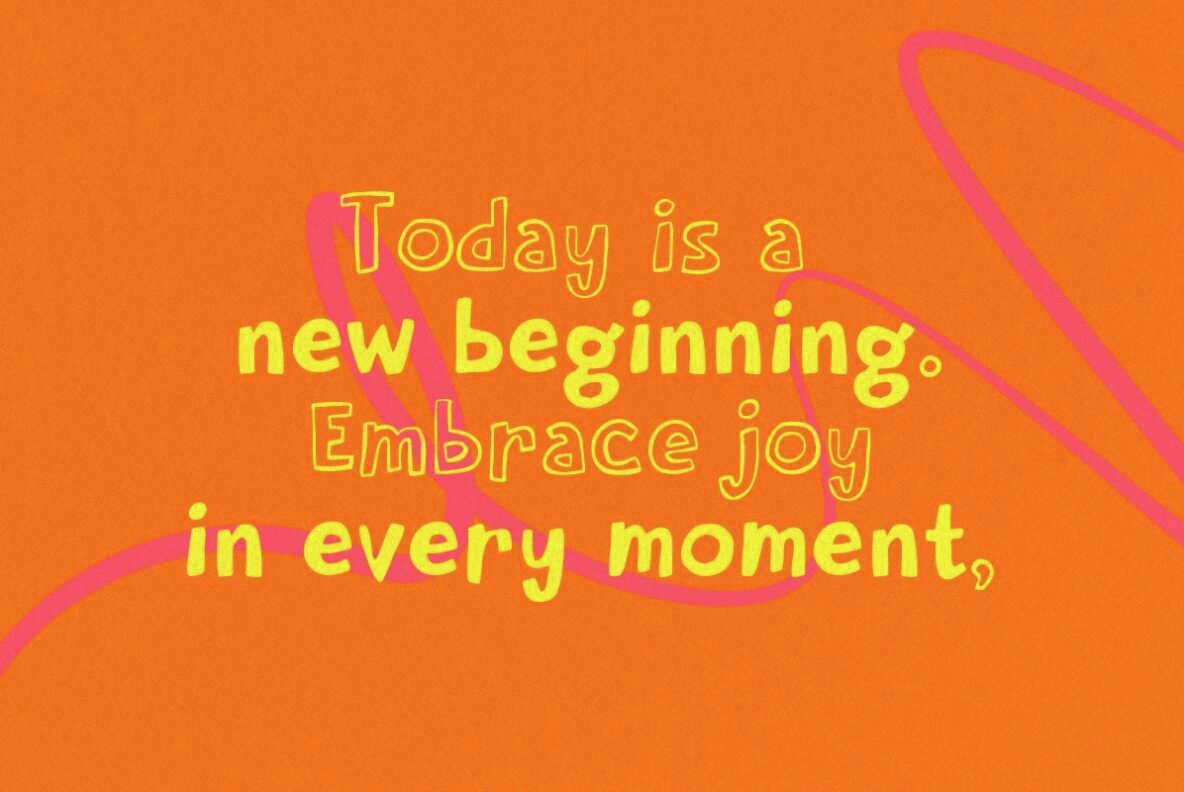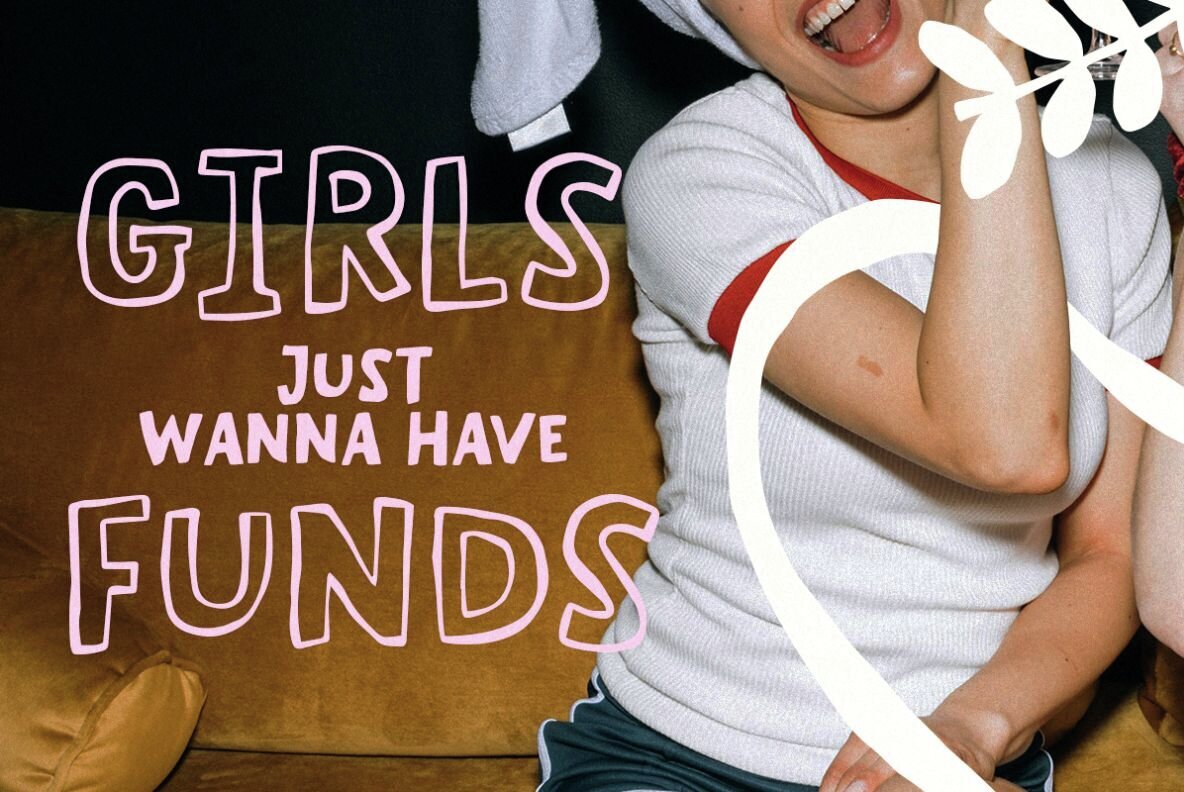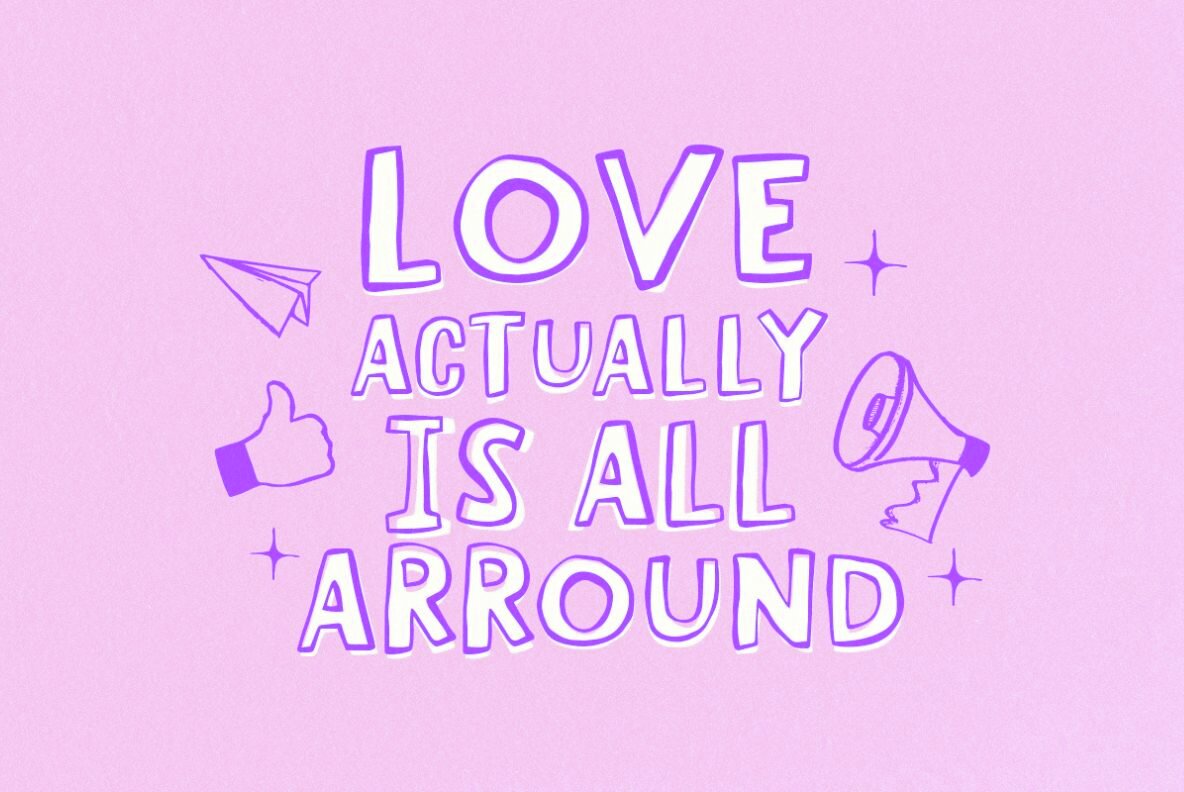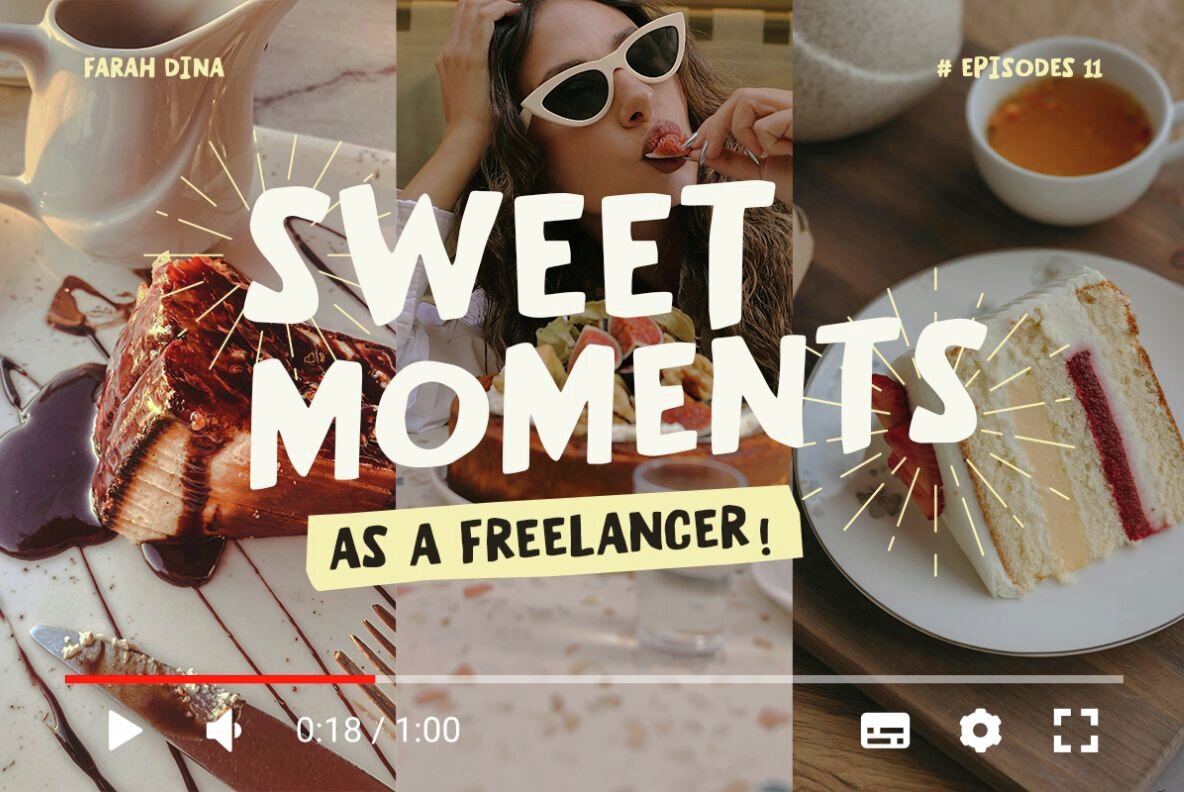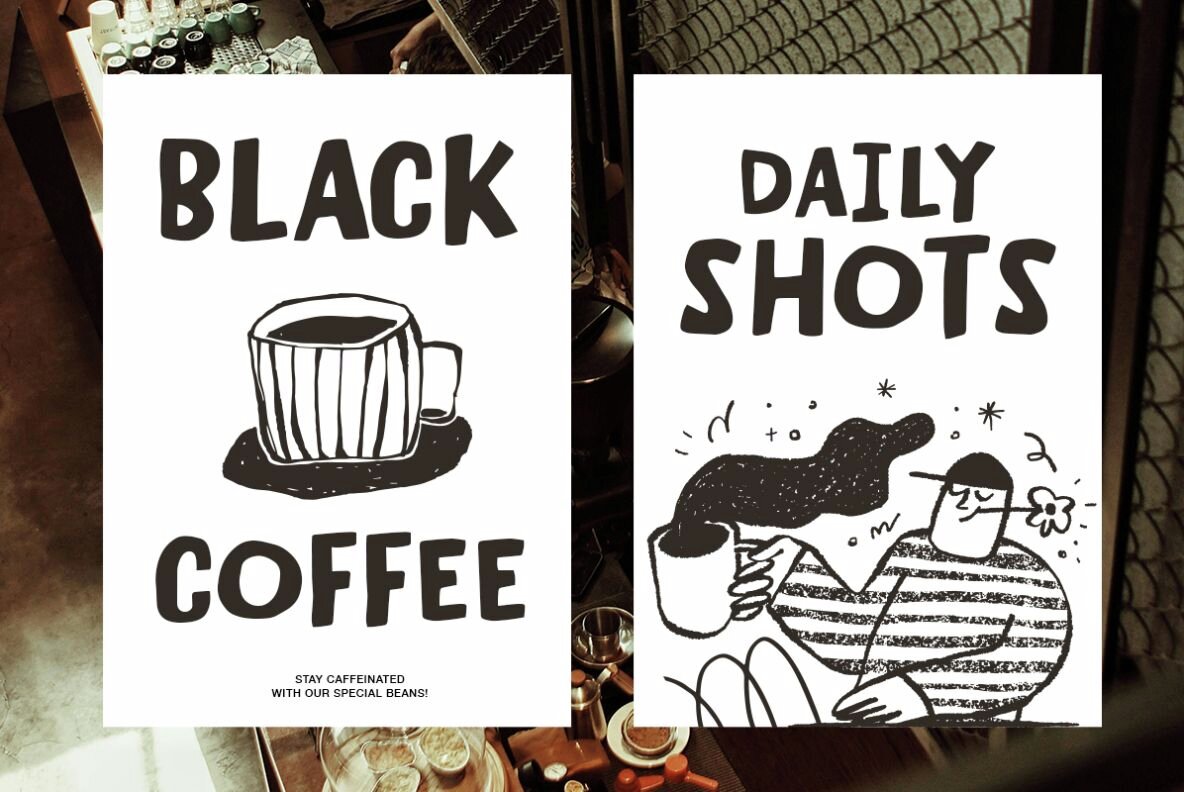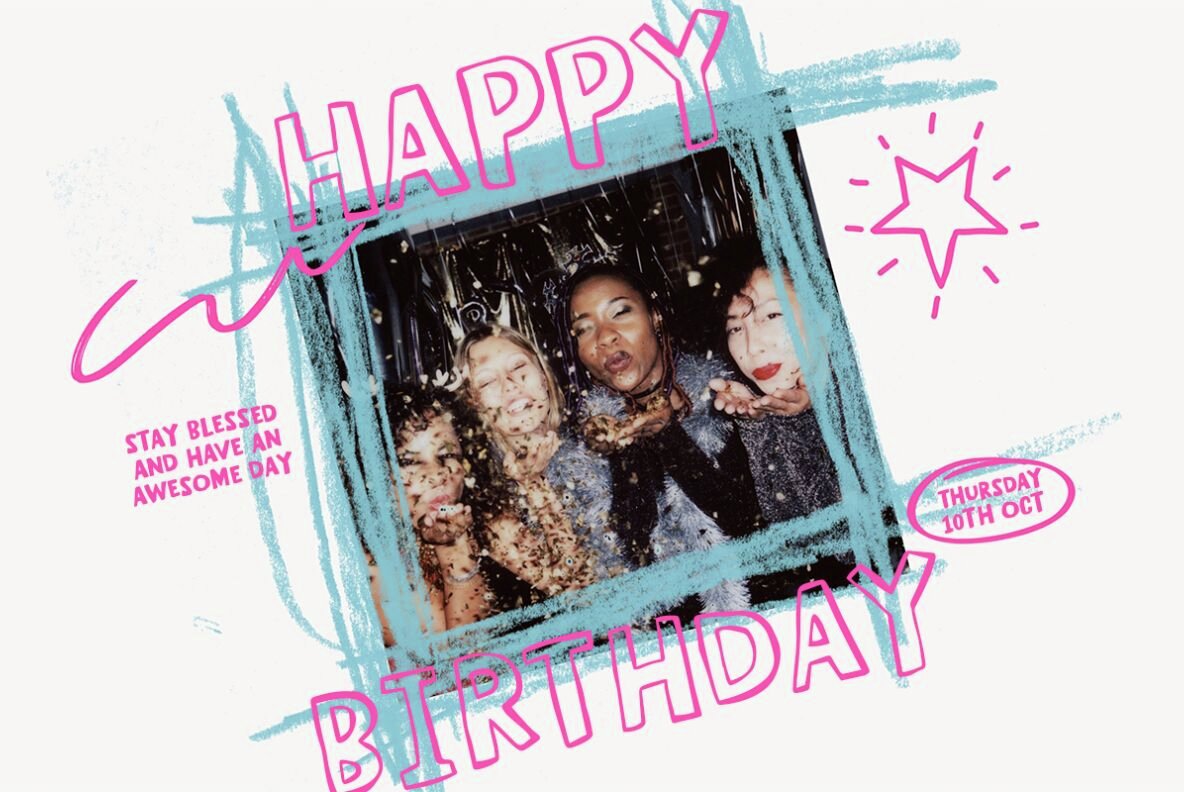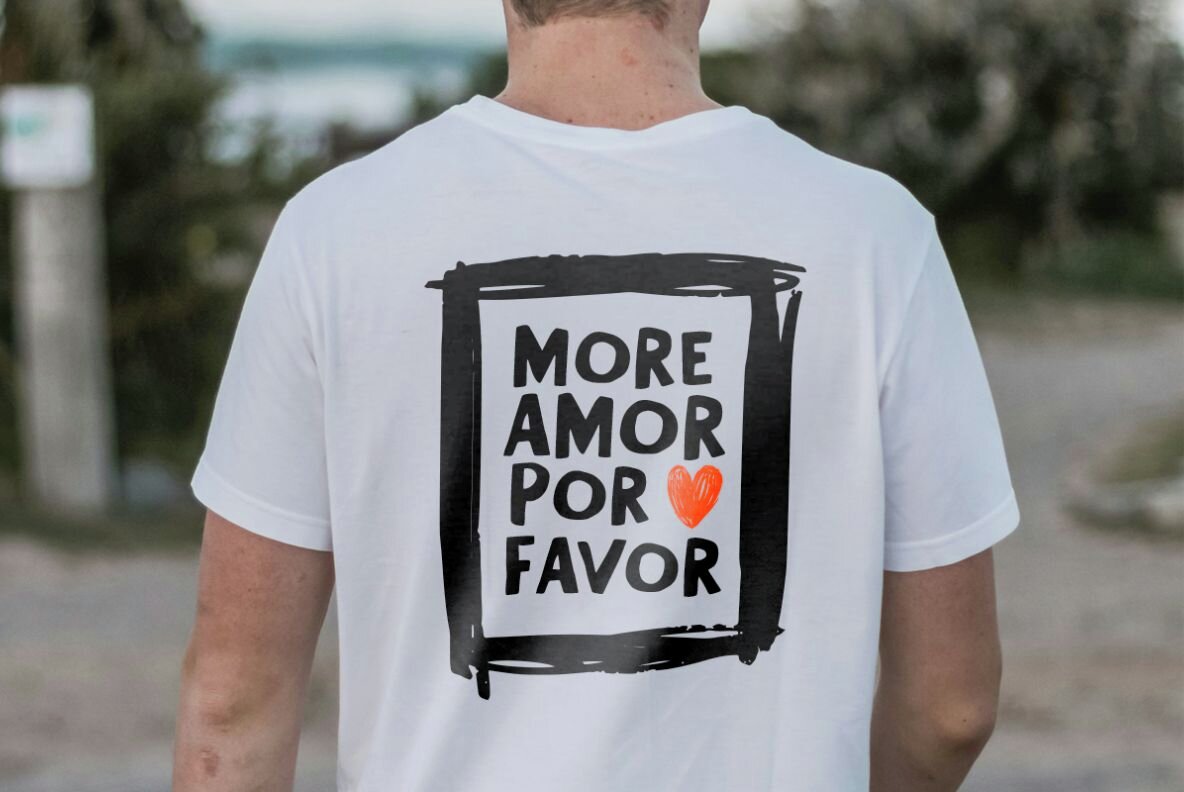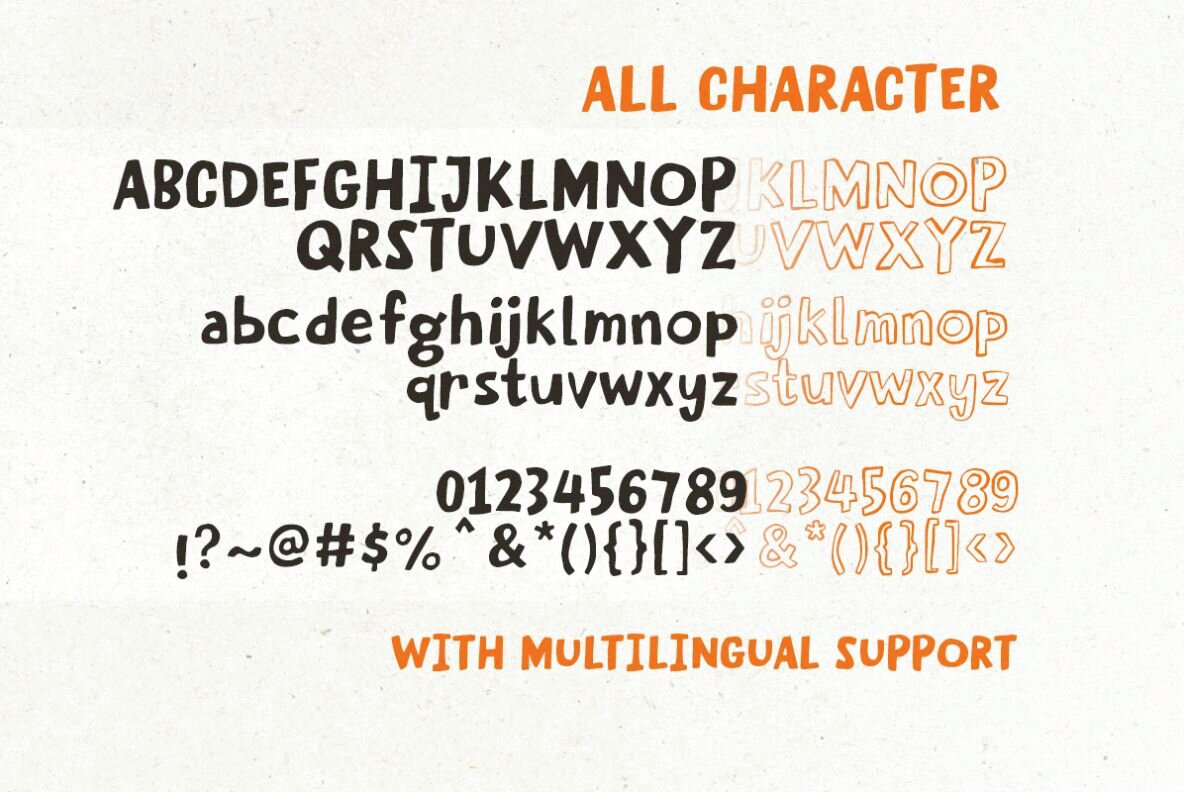
Cute Moment Font
Cute Moment Regular
Cute Moment Outline
Cute Moment is a rough handwritten sans with regular and stylized outline. You can use this font for any purposes especially for quotes and poster. With rough and messy shape, this font will make your design more naturally made. Cute Moment also support multi language.